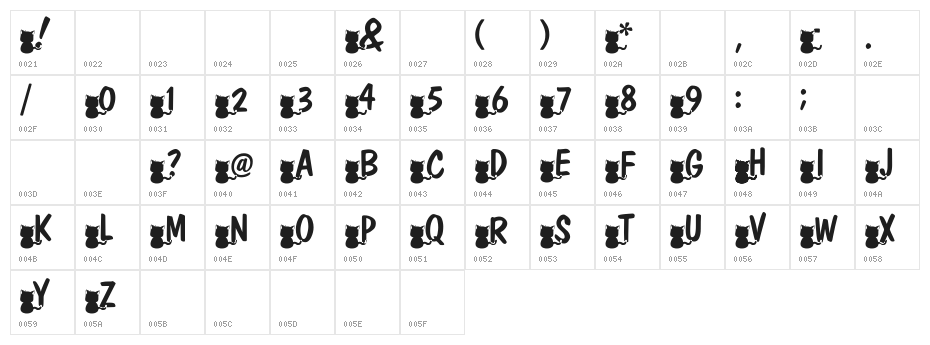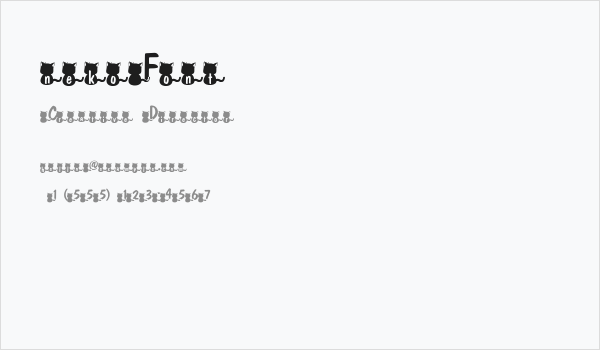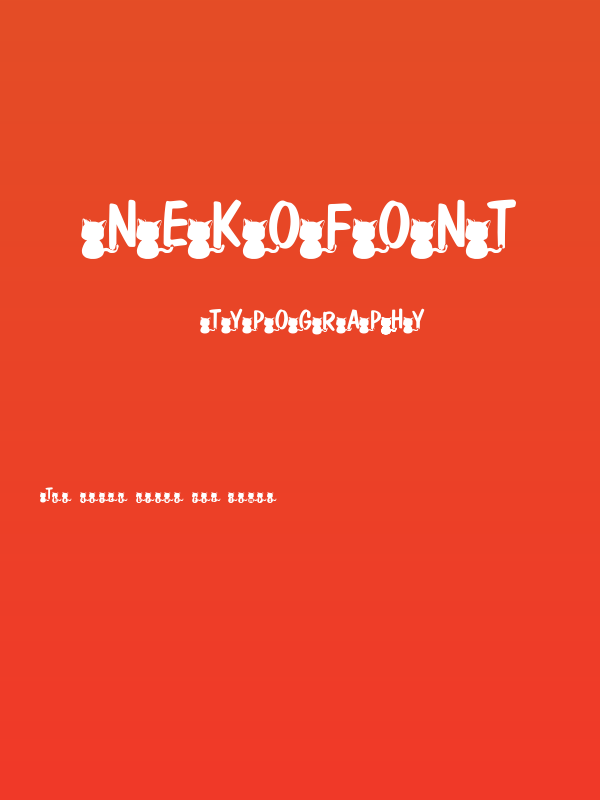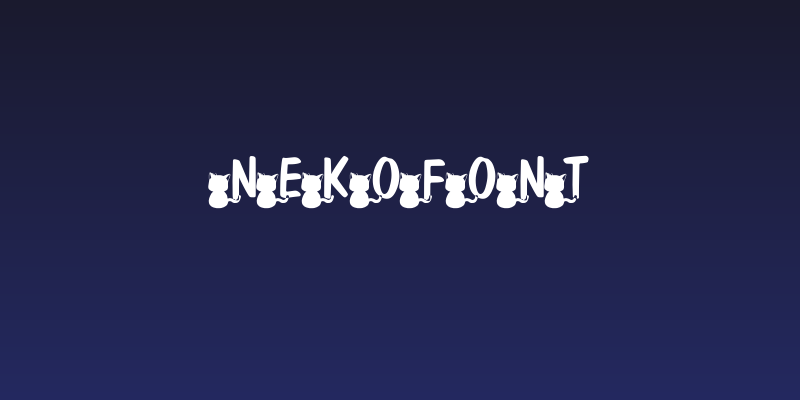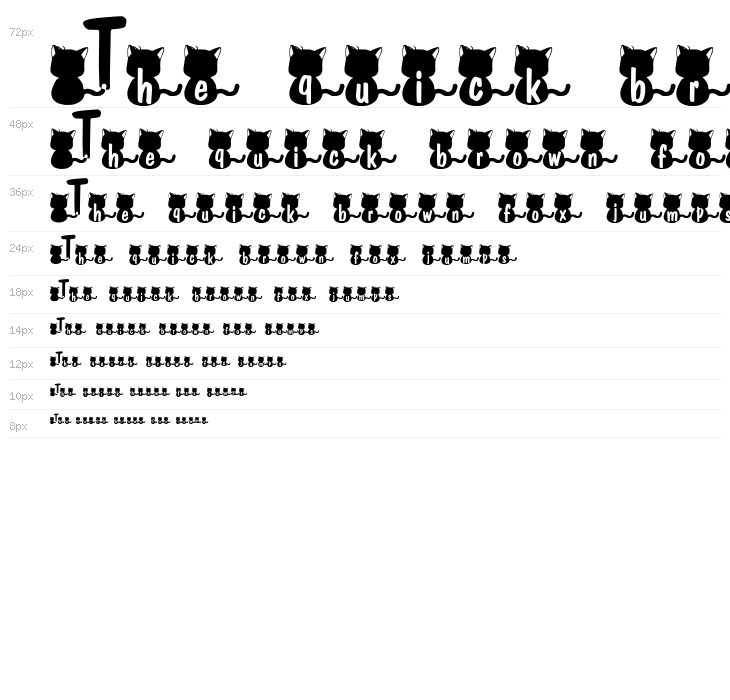
nekoFont Font
nekoFont Description
This playful and whimsical font features characters integrated with cat silhouettes, creating a unique and charming design. Each letter and number is accompanied by a cat figure, adding a fun and decorative element to the text. The font maintains a consistent style with bold, rounded shapes that are easy to read while still being visually engaging. The cat motifs are seamlessly incorporated, making it ideal for projects that require a touch of creativity and personality. The font's distinct style makes it suitable for children's books, pet-related branding, or any design that benefits from a lighthearted and imaginative touch.
| Overall Style | Whimsical, Playful, Decorative |
| Proposed Projects | Children's books, pet branding, playful invitations, creative posters, and whimsical merchandise. |